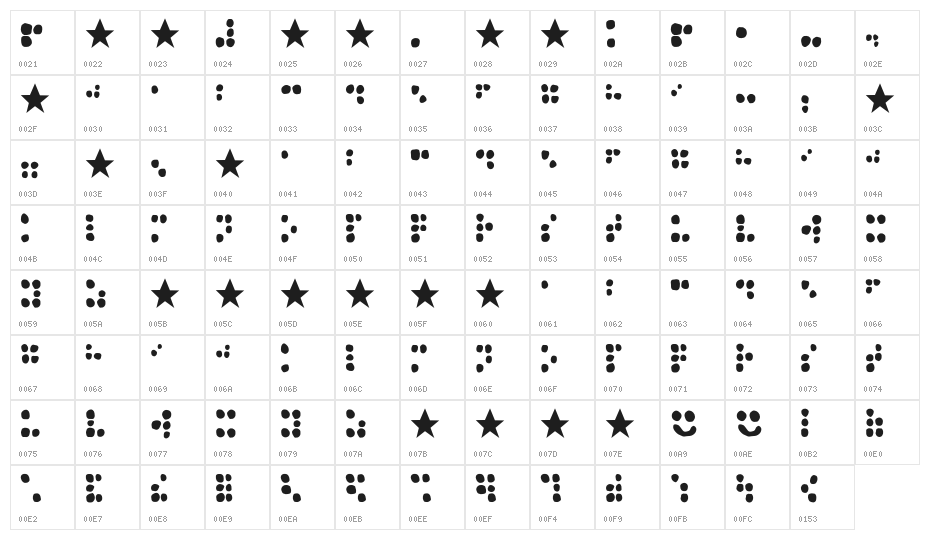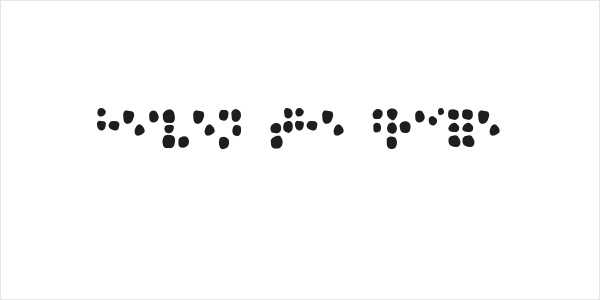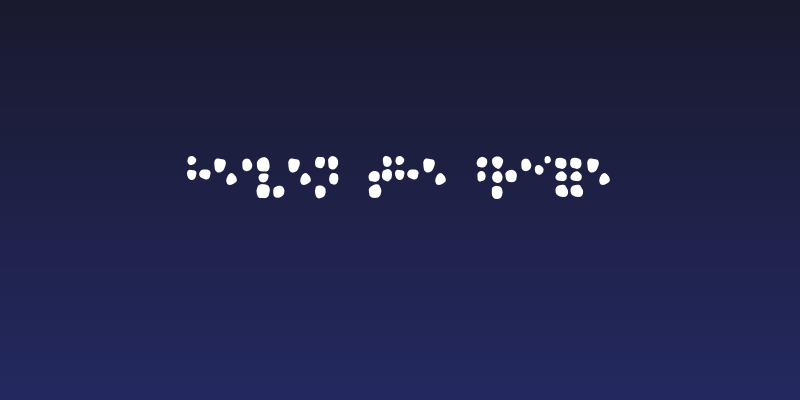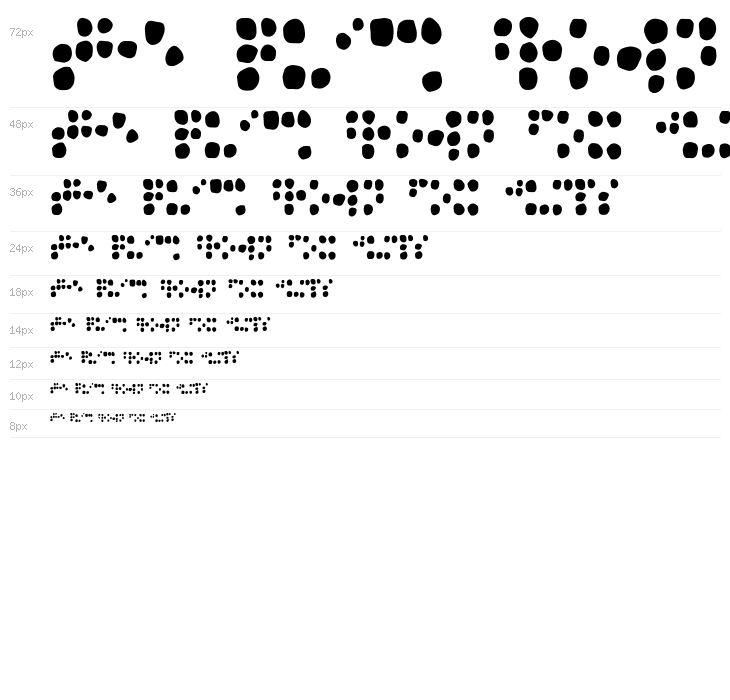
Heaven the Braille Font
Heaven the Braille Description
This image features Braille, a tactile writing system used by people who are visually impaired. It consists of patterns of raised dots arranged in cells of up to six dots in a 3x2 configuration. Each cell represents a letter, numeral, or punctuation mark. The dots are embossed on paper and are read by touch. Braille is essential for literacy and independence among the blind and visually impaired community. It is used worldwide and has been adapted to almost every known language. The system allows for efficient reading and writing, enabling users to access a wide range of information and literature.
| Overall Style | Functional, Tactile |
| Use Case | Accessibility, Education, Communication |
| Proposed Projects | Educational materials for the visually impaired, tactile signage, accessible books, and assistive technology interfaces. |